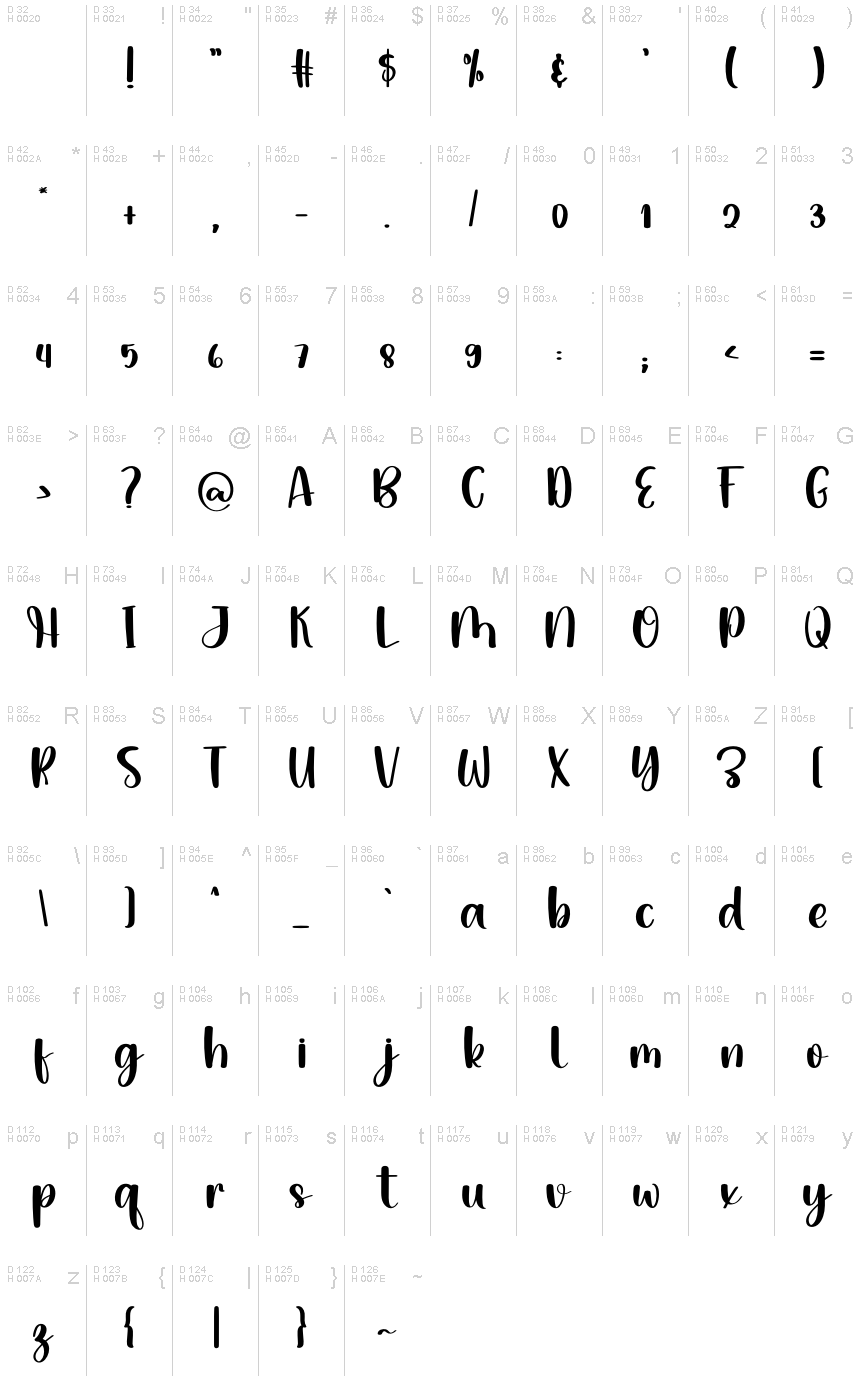
Someday Happy
Someday Happy, a captivating handwritten font crafted by the talented PiPi Creative, exudes a whimsical and charming aesthetic. This dynamic script typeface seamlessly blends organic fluidity with elegant refinement, capturing the essence of spontaneous expression. The fluid, interconnected letterforms and delicate brush strokes evoke a sense of warmth and approachability, making Someday Happy an inviting choice for a wide range of design projects.
Versatile and adaptable, Someday Happy lends itself beautifully to various creative applications, from branding and packaging to stationery and marketing materials. Its handcrafted character effortlessly conveys a personal, heartfelt tone, making it an ideal selection for wedding invitations, greeting cards, and other projects that require a touch of authenticity and personality. Additionally, Someday Happy's versatility extends to digital interfaces, where its playful nature can enhance the user experience and foster a sense of emotional connection.